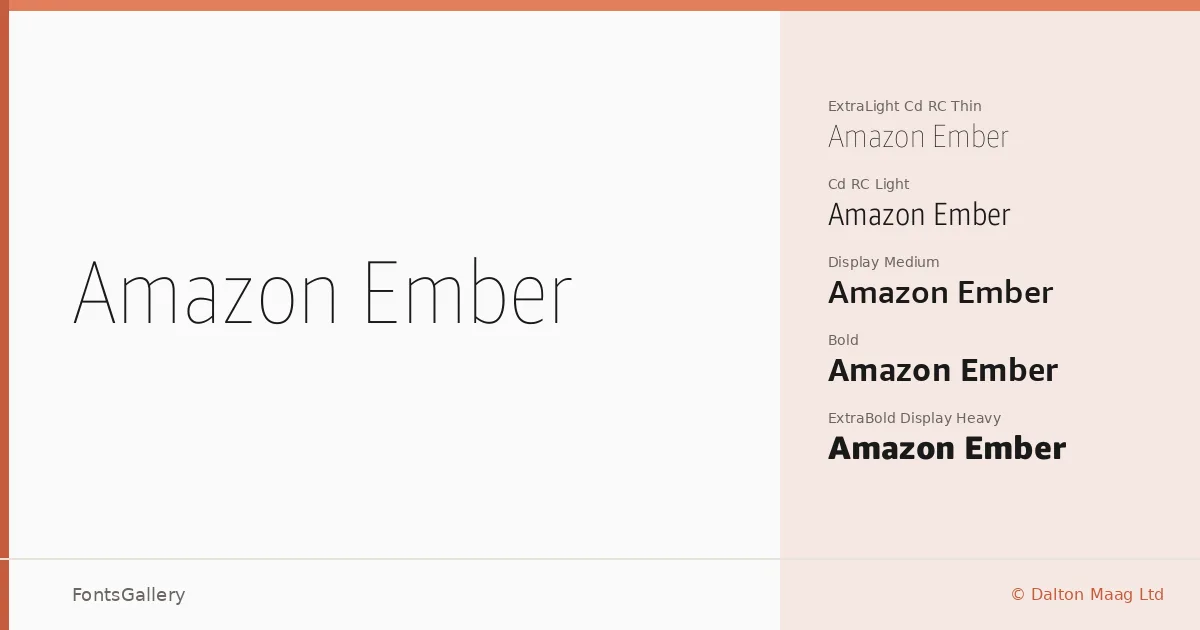
About Amazon Ember Font
Drawn by Dalton Maag Ltd, this is a humanist sans serif built at considerable scale — the kind of commission that demands a system rather than a single face. What stands out immediately is the consistency of the neutral stroke: clean, open apertures, even spacing, and a warmth that stops the design from feeling clinical despite its precision.
The family spans an unusually wide range of sub-families and weights — from ExtraLight Thin through ExtraBold Heavy — and includes condensed roman cuts (Cd RC), display variants, a duospace, and a mono, all available in TTF and OTF. The result is a modern, minimal typographic system with enough weight contrast to sustain hierarchy across many layers of communication. The display cuts open up slightly looser, more expressive spacing for large sizes, while the mono and duospace variants hold a steady professional rhythm suited to data and interface contexts. Cyrillic, Greek, Arabic, Vietnamese, and extended Latin coverage means the family travels well across multilingual projects.
The design is well-suited to branding systems, website headers, signage, advertising, and presentation decks — anywhere that calls for a bold yet minimal visual voice that reads cleanly at both large and small scales. When you need contrast against its geometric neutrality, the listed pairings — Canela, Armelie, 321 Impact, ABC Arizona, and Kactigona — each bring a different texture, from editorial warmth to expressive display energy.